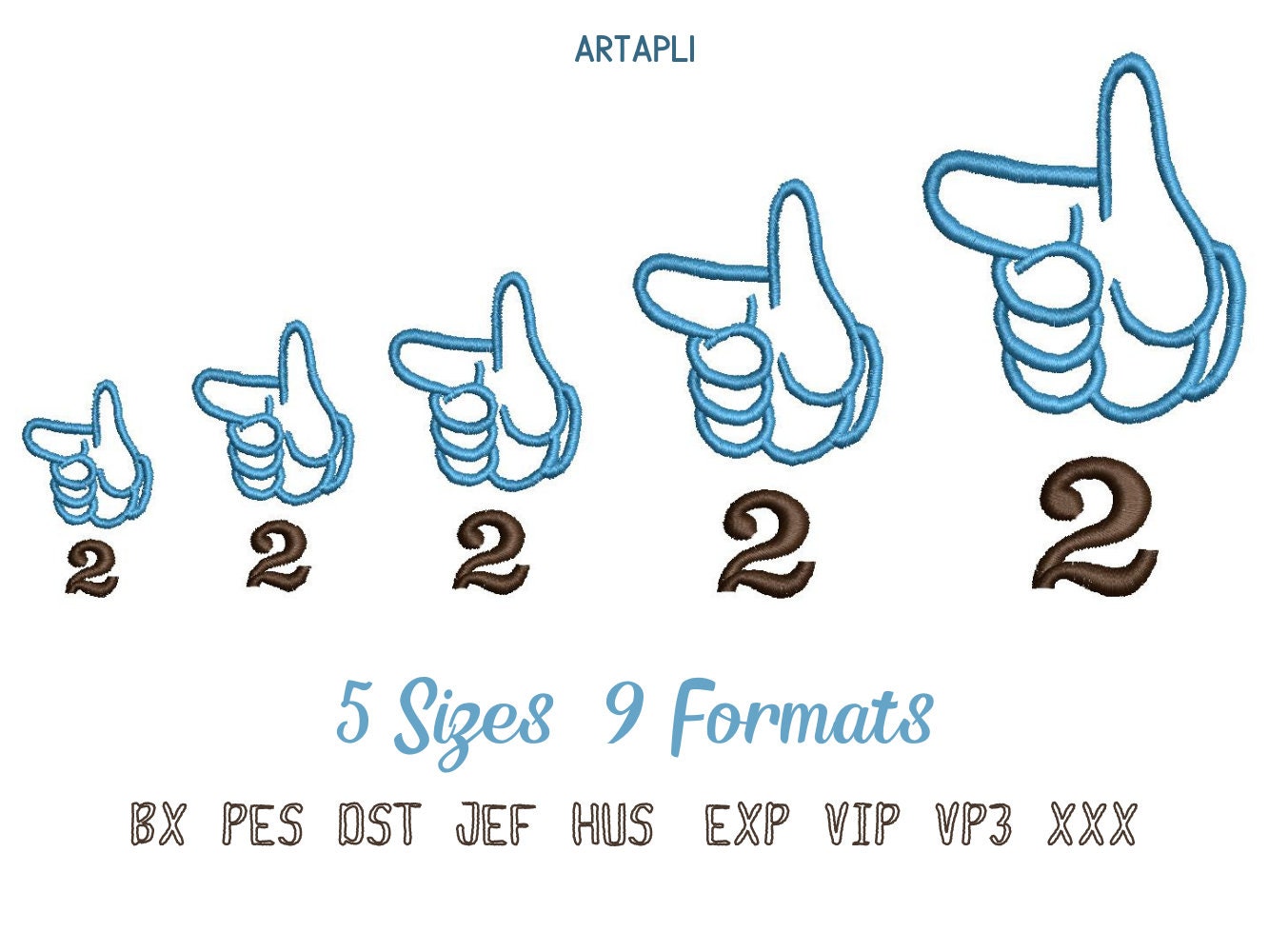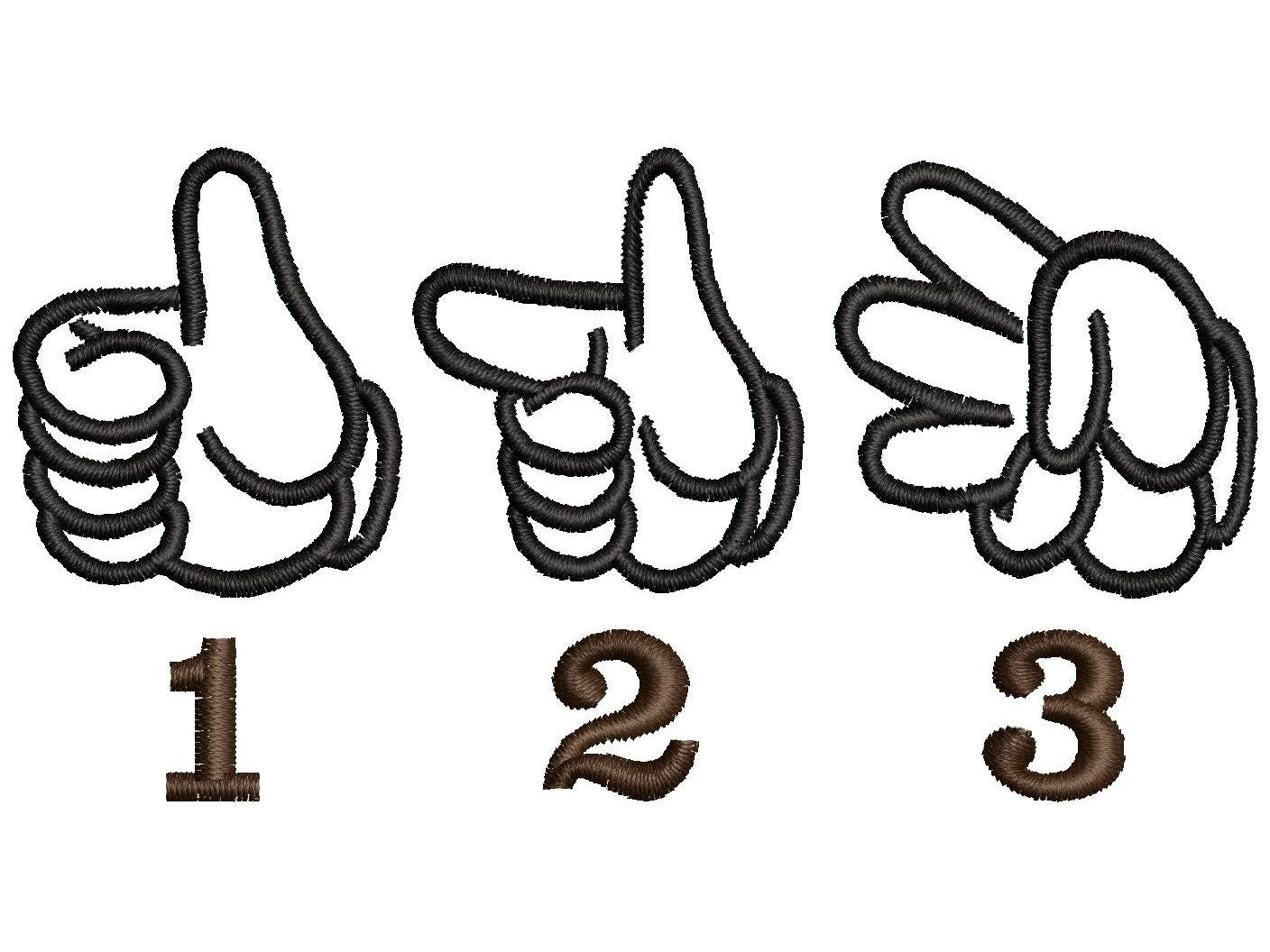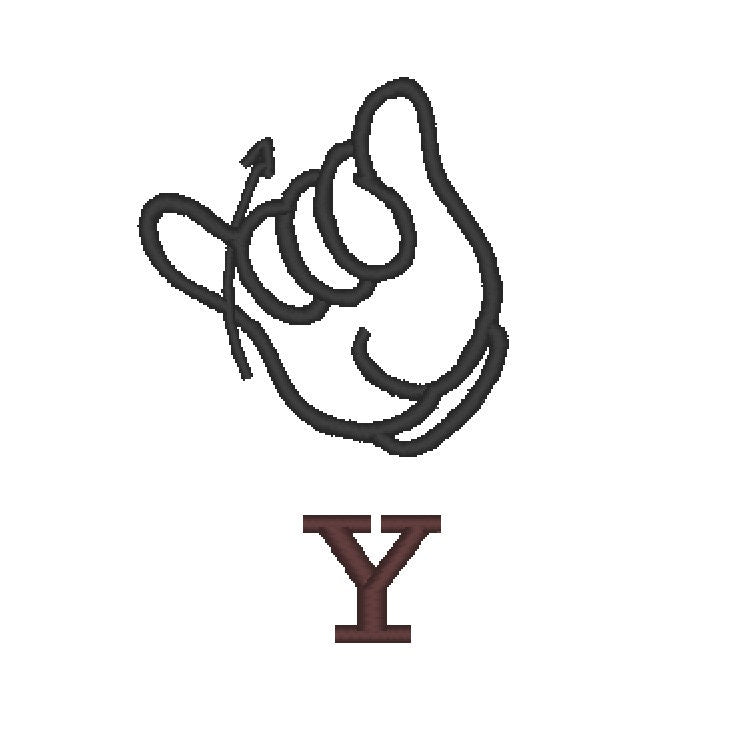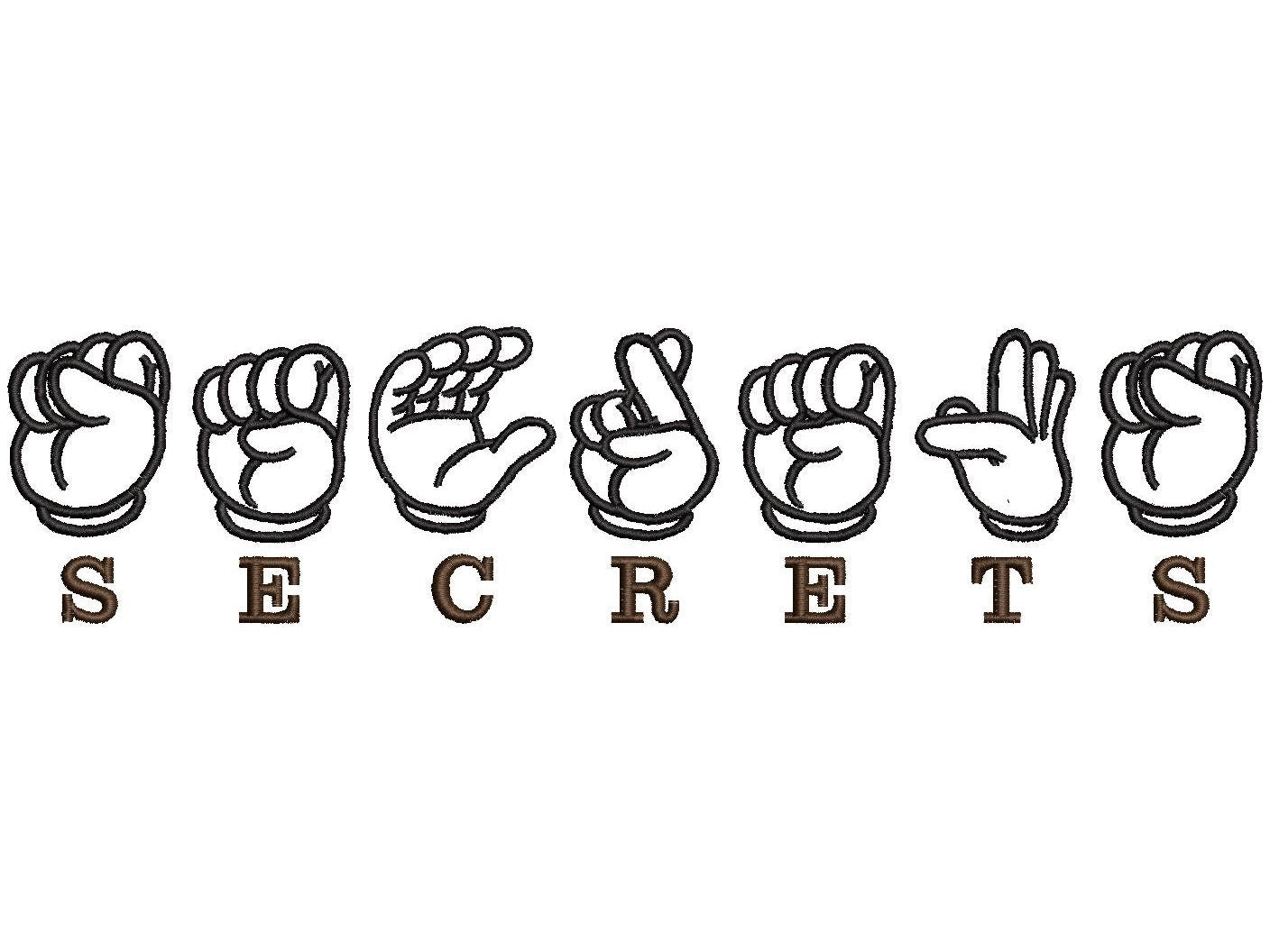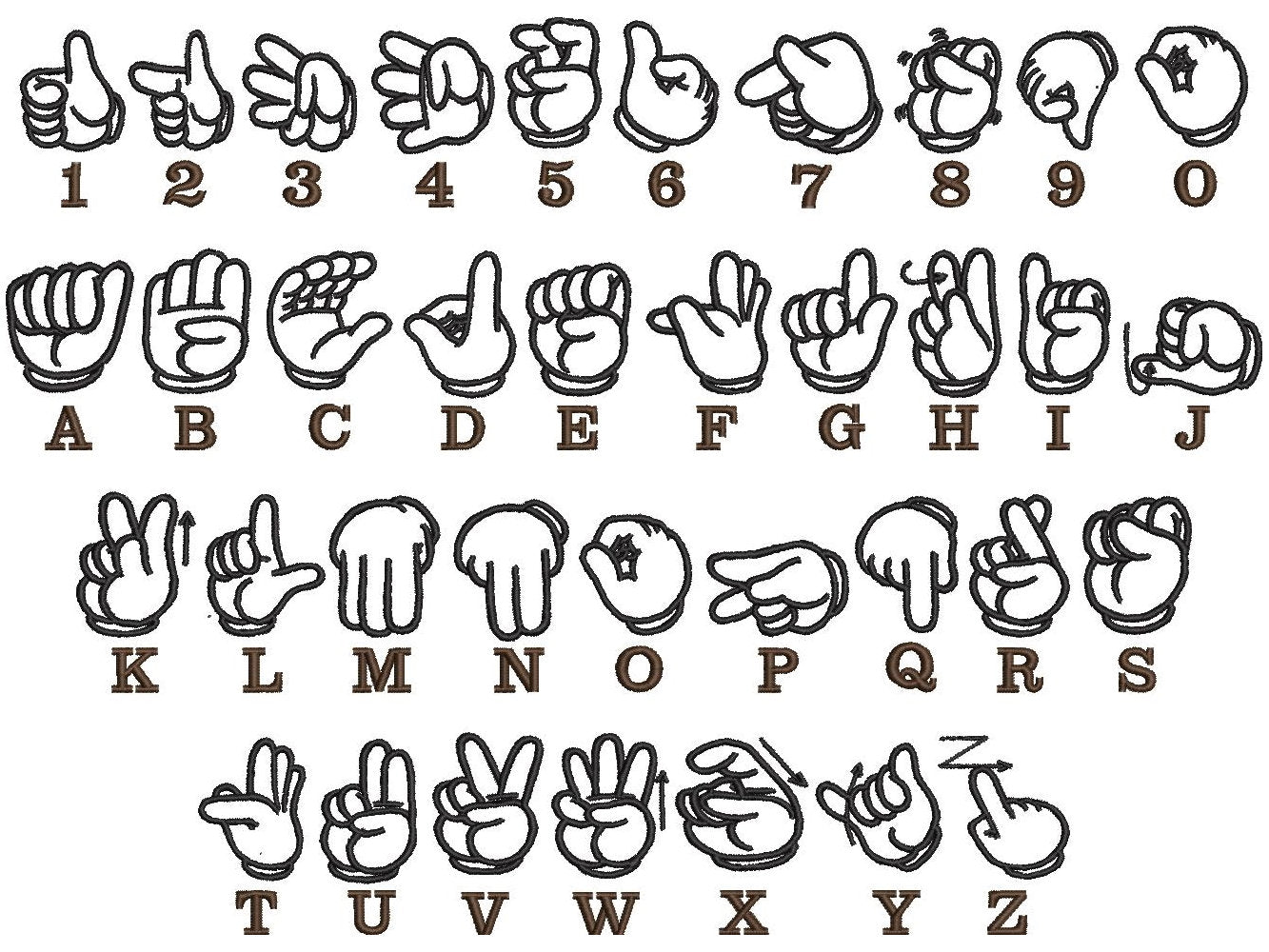
Hand Sign Language Font
Included: Uppercase A-Z, Numbers 0-9
A sign language font: hand signs for every letter and number in a light satin outline. Lovely for teachers, deaf awareness gifts, kids' names and classroom decor.
Uppercase letters A to Z and numbers 0 to 9 as hand signs, in five small sizes: 1.4, 1.7, 2, 2.7 and 3.5 inches. Quick, light stitching where the fabric shows through.
• Hand sign alphabet A to Z
• Numbers 0 to 9
• 5 sizes, 1.4 to 3.5 in